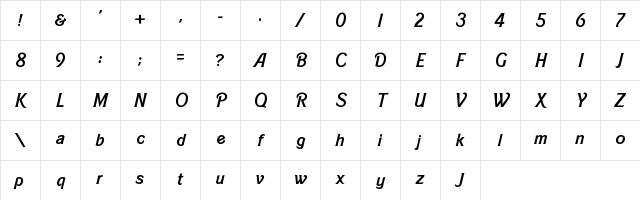
Ara Assaf Regular Free Font
Ara Assaf Regular
Foundry: ZakDesigN | iskyfalcons
Designer: Assaf S.Algarni Assaf S. Algarni Assaf S.Algarni
Design Context for Ara Assaf
Ara Assaf is a composed and adaptable typeface that performs quietly and consistently across a wide range of design contexts.